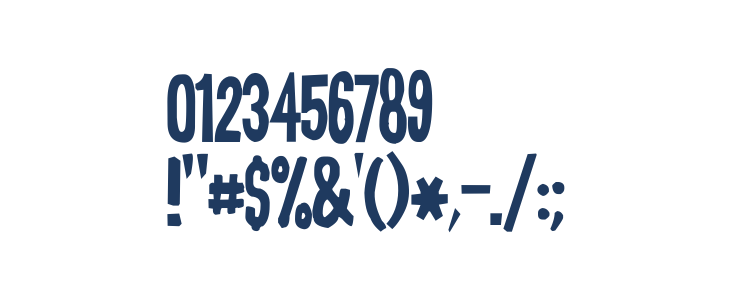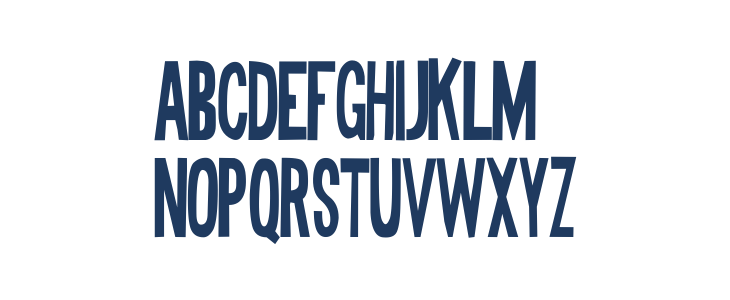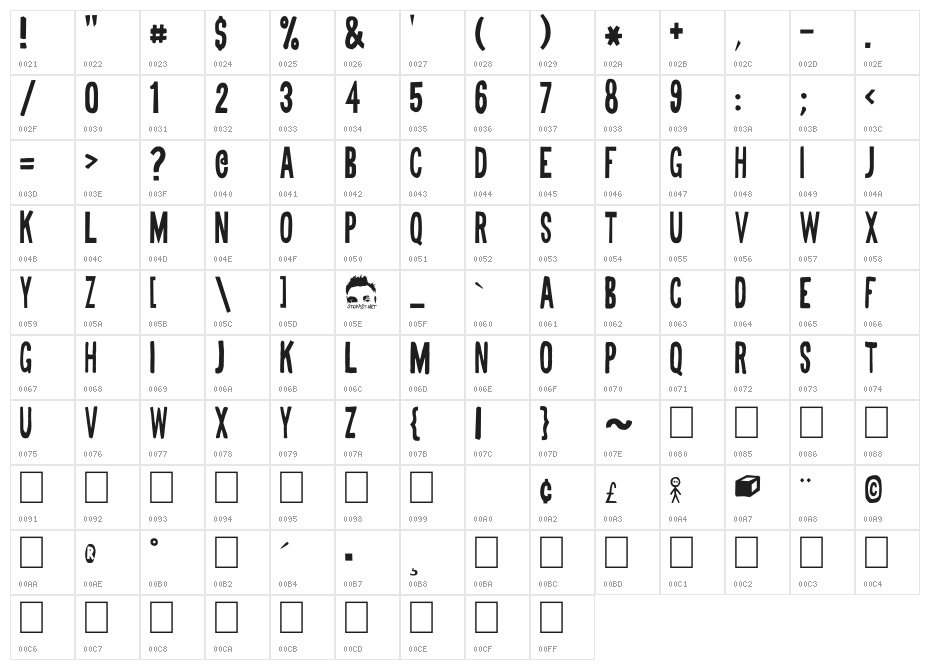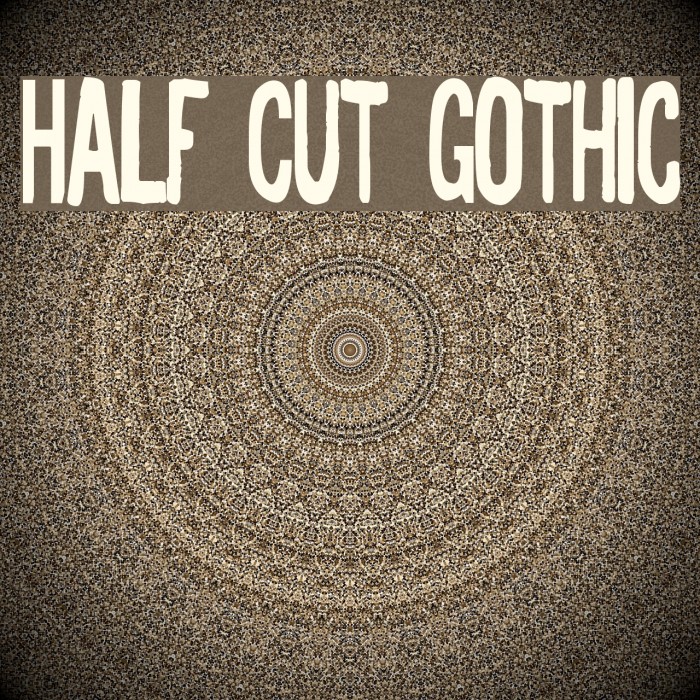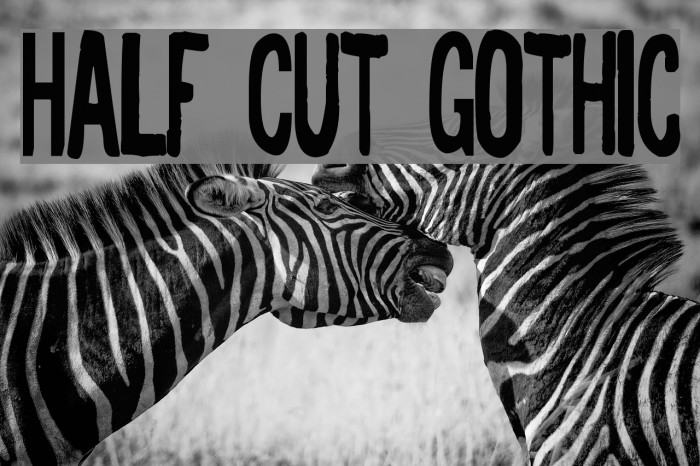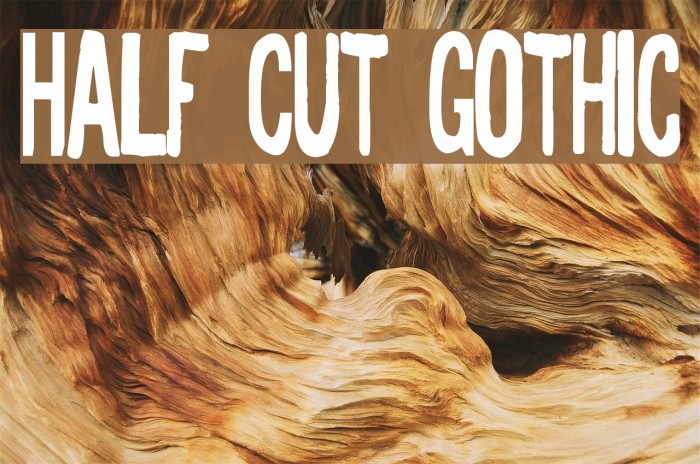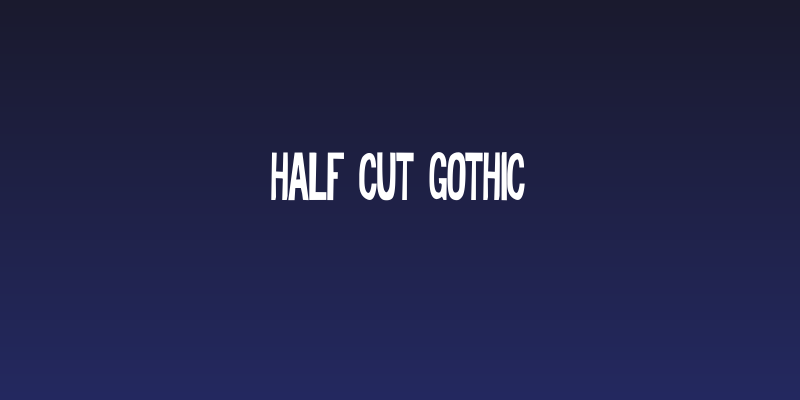
Half Cut Gothic Font
Half Cut Gothic Description
This font features a bold and striking design with a distinct gothic influence. The uppercase letters are tall and narrow, with sharp edges and a slightly condensed appearance. The lowercase letters maintain the same boldness, offering a cohesive look across the alphabet. Numbers are equally bold, ensuring visibility and impact. The special characters are designed to match the overall style, providing a consistent aesthetic. This font's unique style makes it ideal for projects that require a strong visual presence.
| Overall Style | Gothic, Decorative |
| Proposed Projects | Ideal for posters, album covers, branding, and any project needing a bold, impactful typeface. |